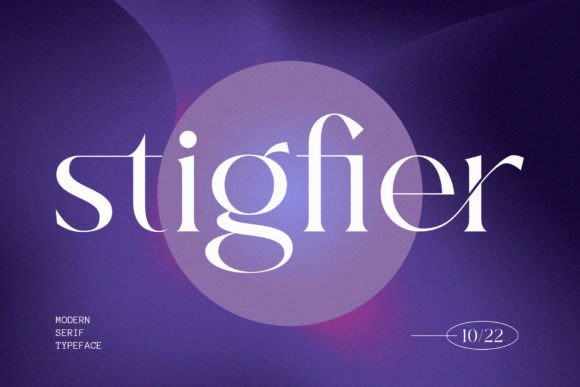
Are you on the hunt for the perfect font to add a touch of sophistication to your Flat UI designs? Look no further than Stigfier, the alluring serif font that will elevate your creations to new heights.
Stigfier's timeless elegance and modern flair make it an exceptional choice for a wide range of design projects. From captivating headlines to sleek body copy, this versatile font will effortlessly enhance the visual appeal of your work.
This stunning font family boasts a comprehensive character set, empowering you to express your creativity without limits. With its PUA encoding, accessing the full spectrum of glyphs and ligatures is a breeze, ensuring that your designs stand out from the crowd.
Immerse yourself in the world of Stigfier and discover the myriad of possibilities it holds. Whether you're seeking to craft eye-catching logos, captivating social media posts, or visually stunning websites, this font will effortlessly elevate your designs to the next level.
Don't settle for ordinary fonts that fail to inspire. Embrace the exceptional qualities of Stigfier and unlock the true potential of your Flat UI creations. Experience the allure of timeless elegance and modern sophistication today.